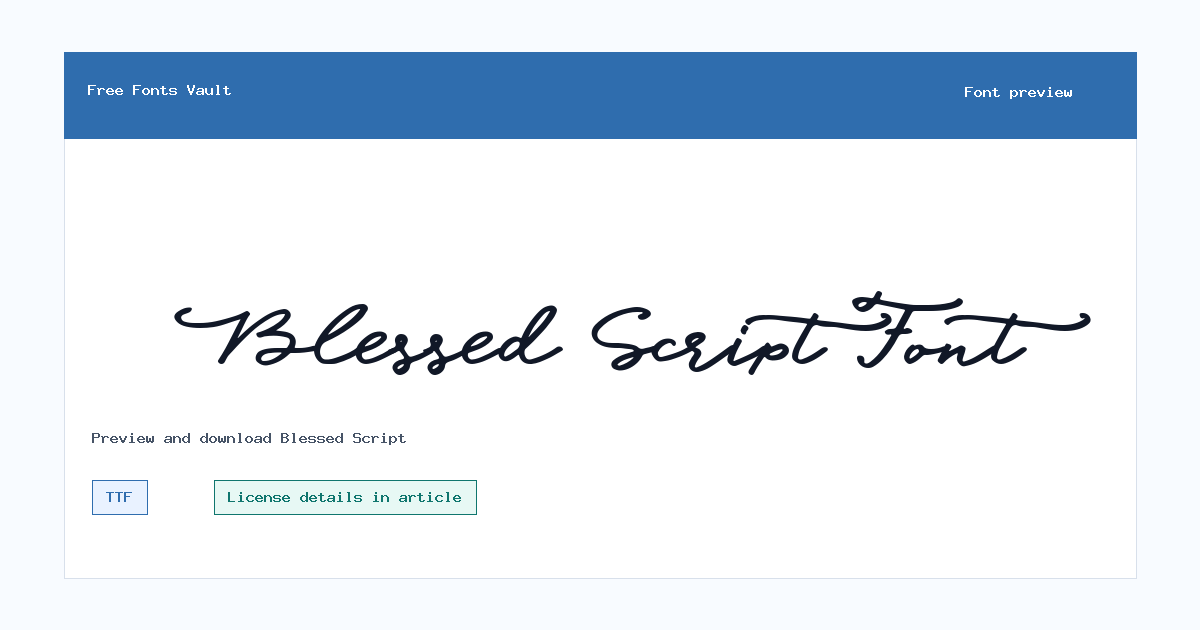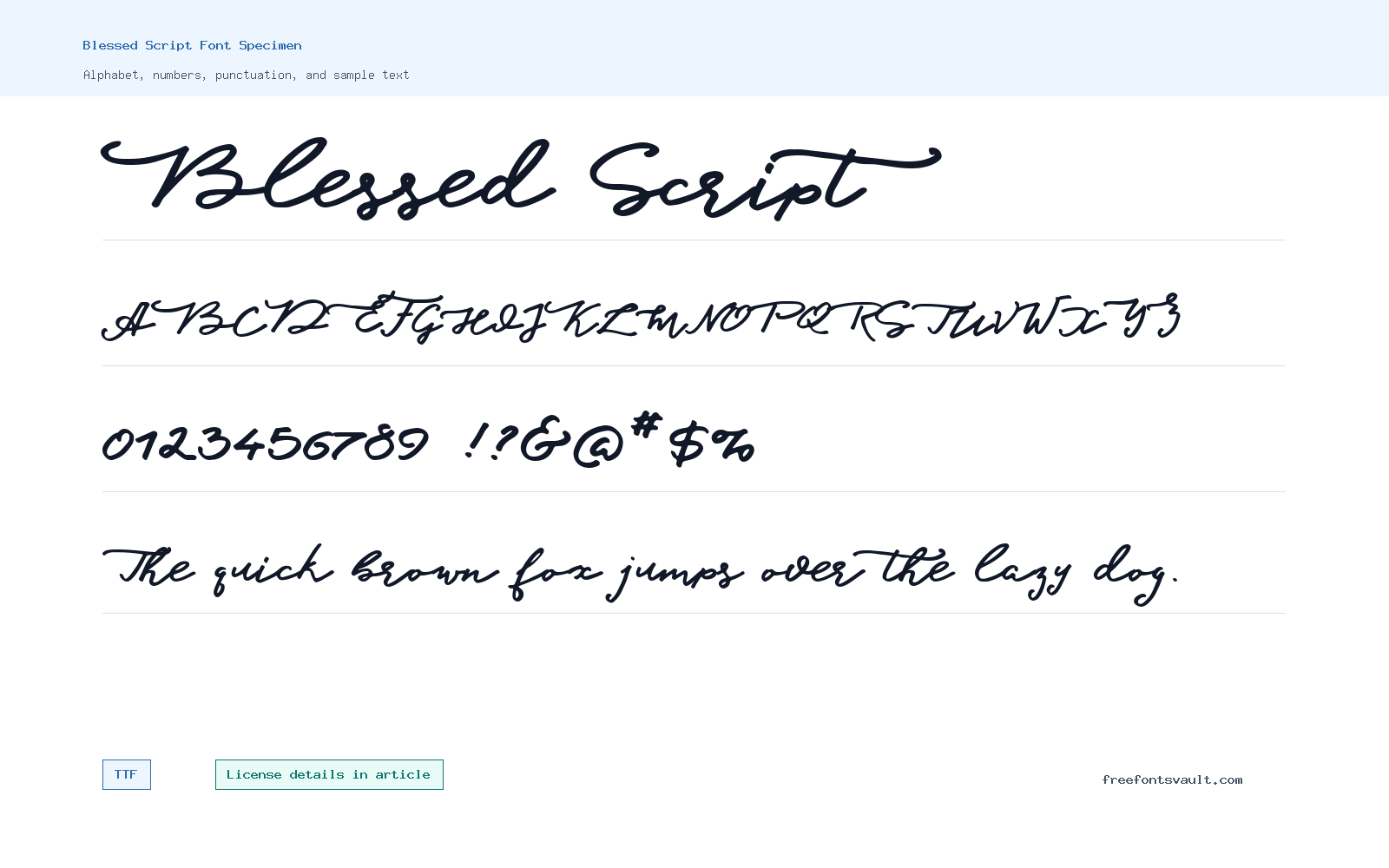
Blessed Script
- Designer Dmitrii Mikitenko
- Foundry BlessedPrint
Blessed Script font.
Blessed Script is a decorative script font family with a flowing handwritten feel and an extra swash file for more expressive lettering.
About Blessed Script
Blessed Script is built for display use rather than long reading. Its script style works best when the words have room to breathe, especially in names, short phrases, invitations, packaging mockups, social graphics, and decorative headings. The family includes a regular TTF file and a separate swashes TTF file, giving you a way to add more ornamental strokes when the design needs a stronger handmade look.
Use the preview tool to test your exact words before downloading. Script fonts can change a lot from one phrase to another, so check capital letters, repeated letters, spacing, and punctuation. For a cleaner layout, pair Blessed Script with a simple sans serif or serif for supporting text. Keep the script for the focal words, and avoid using it for small paragraphs, dense menus, or any text that must be read quickly.
When using the swashes file, add decoration only where it helps the word shape. Too many ornamental strokes can make names harder to read, so test a plain version first and then add swashes to initials, endings, or special display lines.
Preview names with ascenders and descenders, such as letters b, d, h, g, j, p, and y, because script spacing often changes around those shapes.
- Wedding names, invitations, greeting cards, and elegant short phrases
- Logos, packaging mockups, labels, social posts, and display headings
Blessed Script is credited to Dmitrii Mikitenko, with BlessedPrint listed as the foundry.
What is Blessed Script best used for?
It is best for short decorative text such as names, headings, invitations, greeting cards, labels, and social media graphics.
Can I use Blessed Script for body text?
It is not ideal for long paragraphs. Use it for emphasis or display words, then choose a simpler font for longer reading.